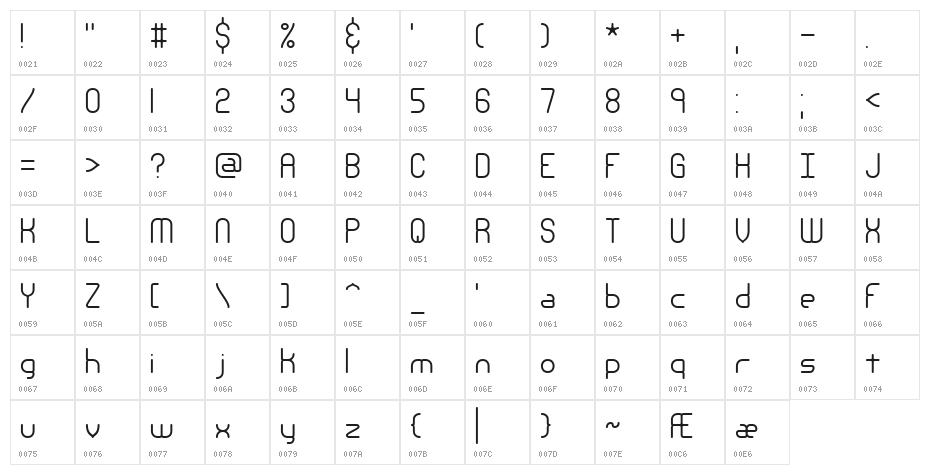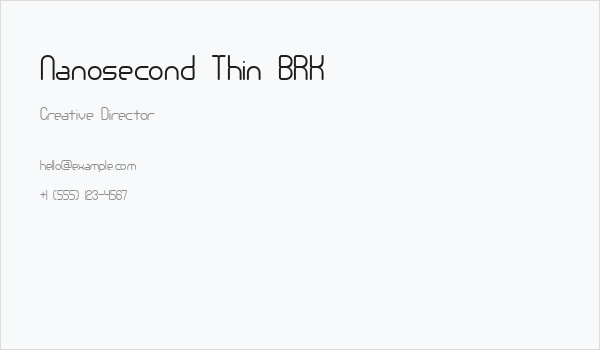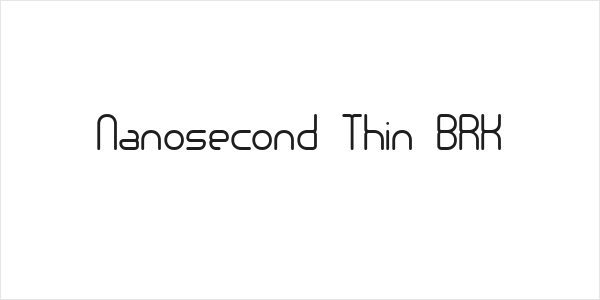
Nanosecond Thin BRK Font
Nanosecond Thin BRK Description
This font features a modern, geometric design with rounded edges and a monolinear stroke. The characters are constructed with a consistent thin line weight, giving it a sleek and minimalist appearance. The uppercase and lowercase letters maintain a uniform height, contributing to a clean and organized look. The numerals and special characters are designed to match the overall aesthetic, ensuring a cohesive visual style. The font's simplicity and clarity make it suitable for digital interfaces and contemporary design projects.
| Use Case | Headlines, Logos, Digital interfaces |
| Proposed Projects | Ideal for digital interfaces, tech branding, modern posters, and minimalist design projects. |